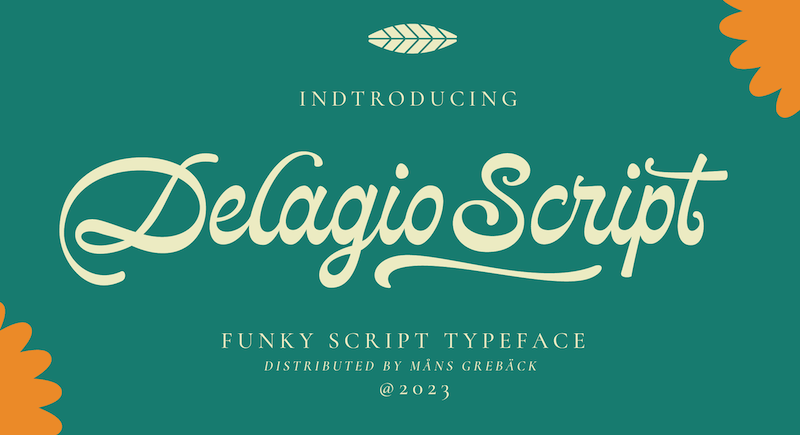
Preview and download Delagio Script Font. Created by Måns Grebäck in Script Old School styles with Free for personal use license.
NOTE: This font is for PERSONAL USE ONLY! To purchase a commercial license, visit: http://mn.sg/delagio-script Delagio Script is a calligraphic font that combines cursive elegance with a funky, innovative edge. It's a creative and heavy retro-inspired font that embodies the distinctive charm of soft brush strokes. Use underscores _ to make swashes under words. Example: Magician_ For questions, please visit www.mansgreback.com/faq |